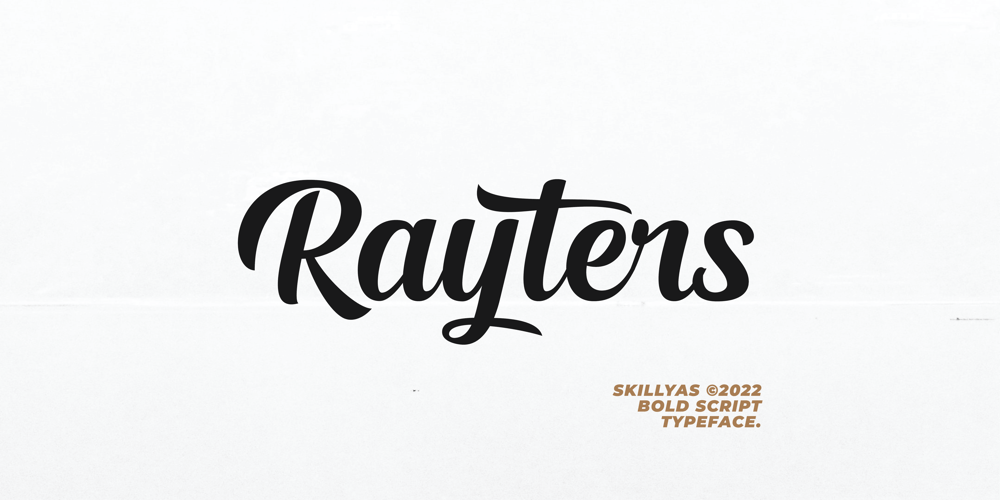
Rayters Font Family was designed by ahmad faizin and published by skillyas studio. Rayters contains 1 styles and family package options. The Rayters is a Modern bold script. Rayters is handcrafted Carefully with smooth curves so this font is great for Branding, Logo Design, Lettering, Logotype, Clothing, Poster, magazine, and other design project.The Rayters Character Set :to see more of our work visit our website: skillyasstudio.com